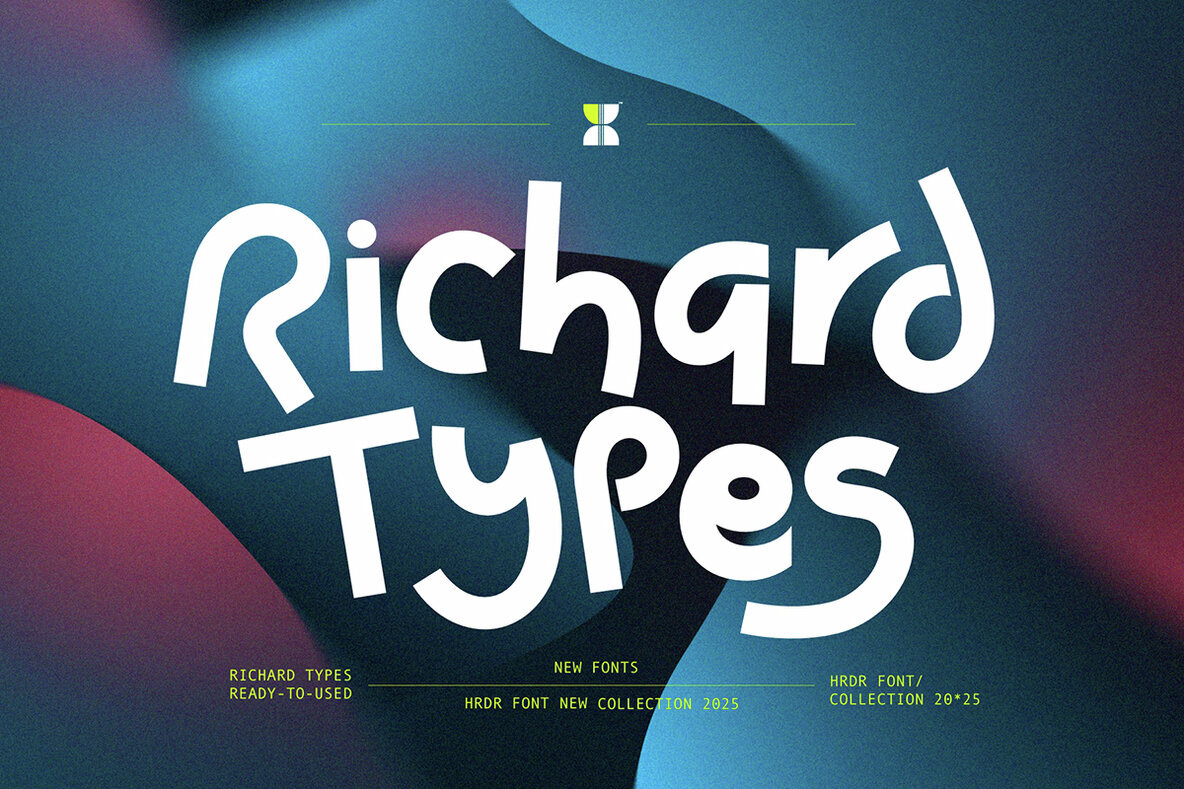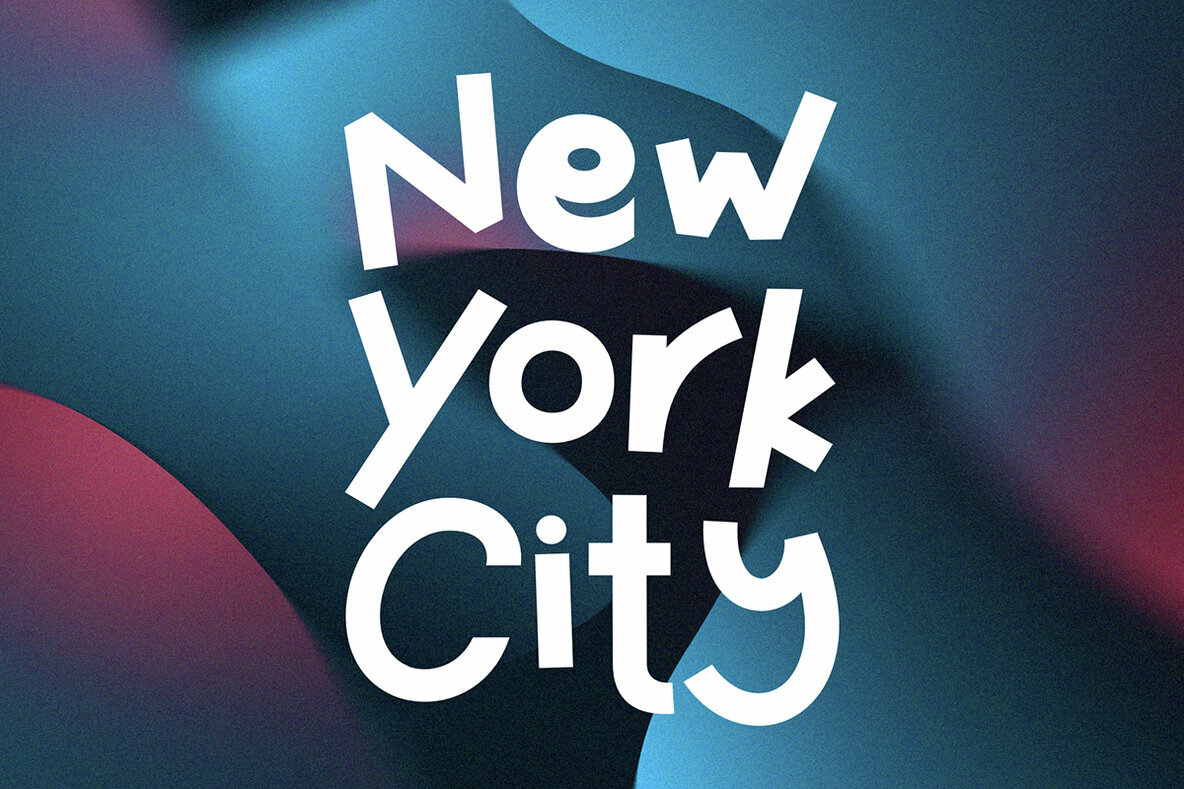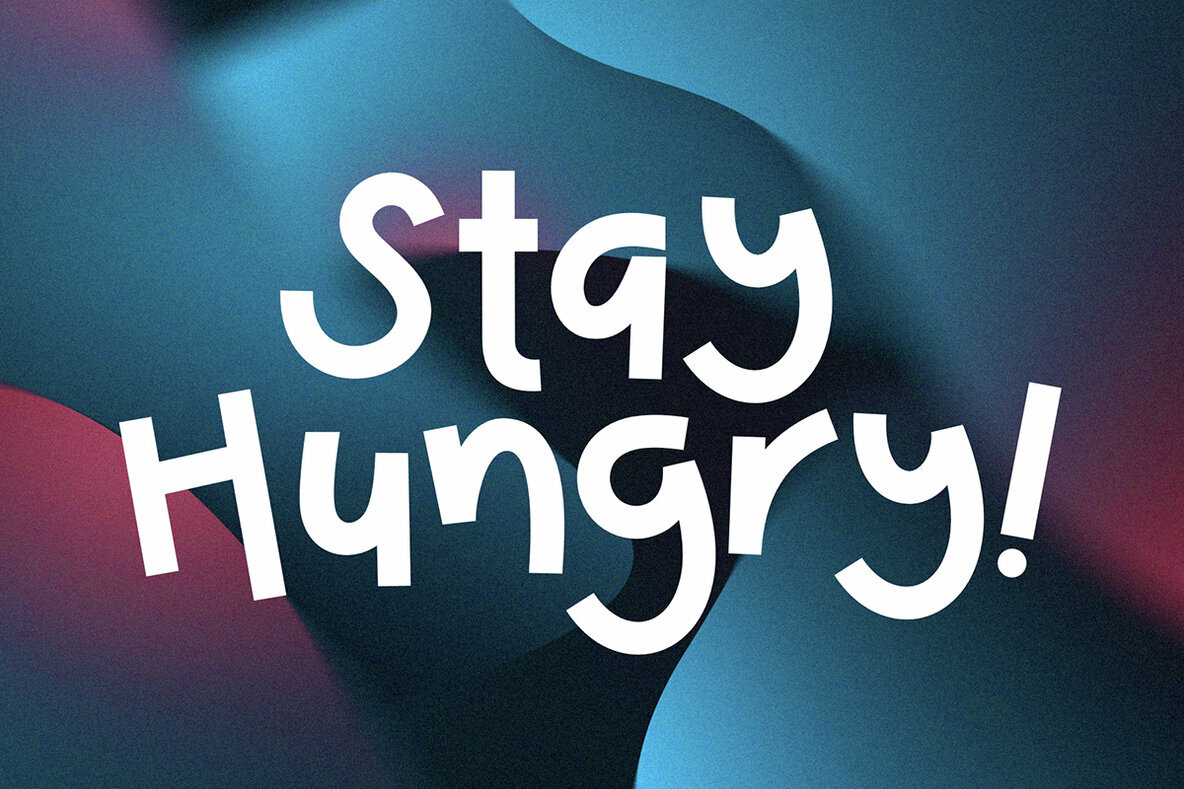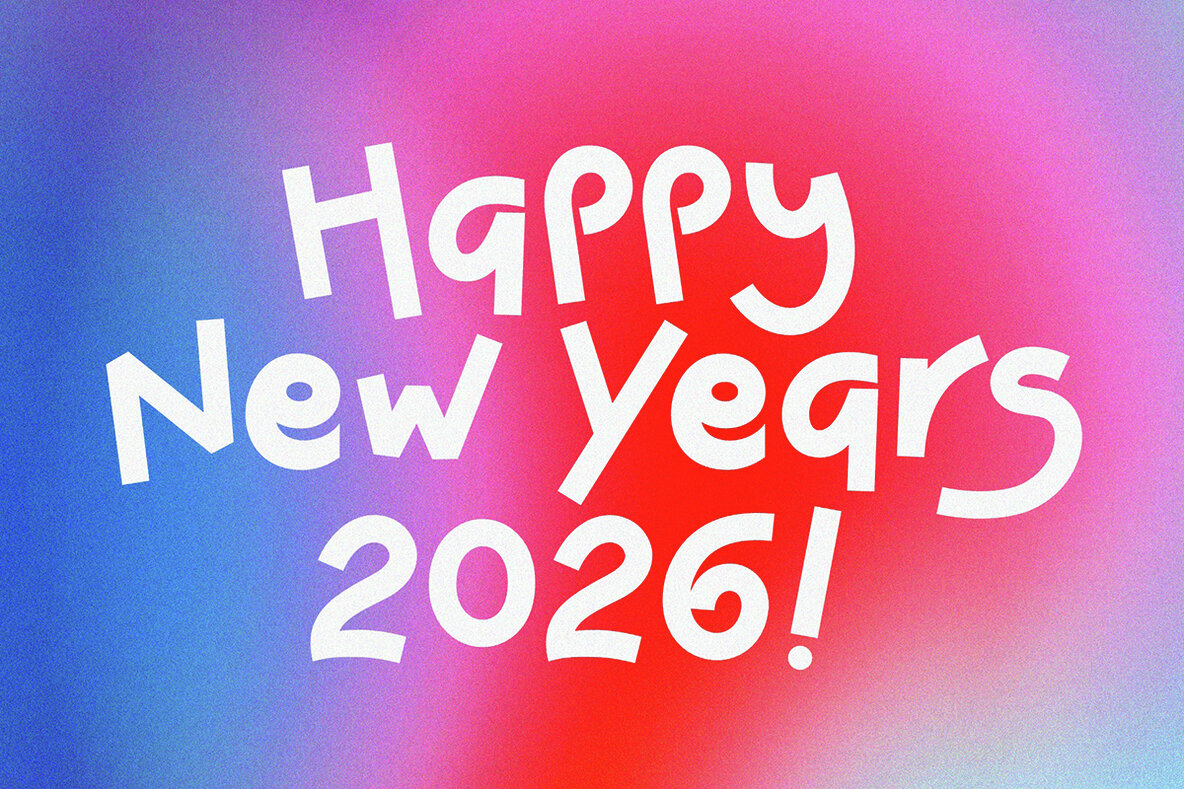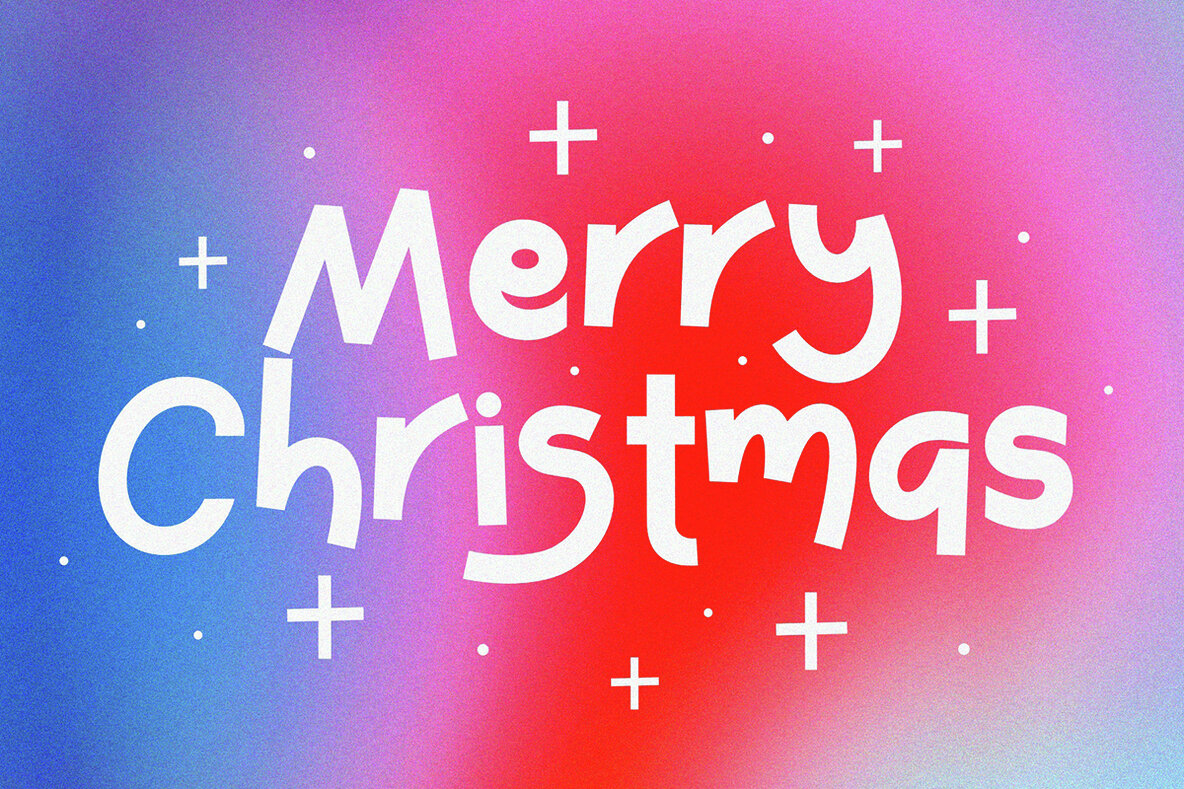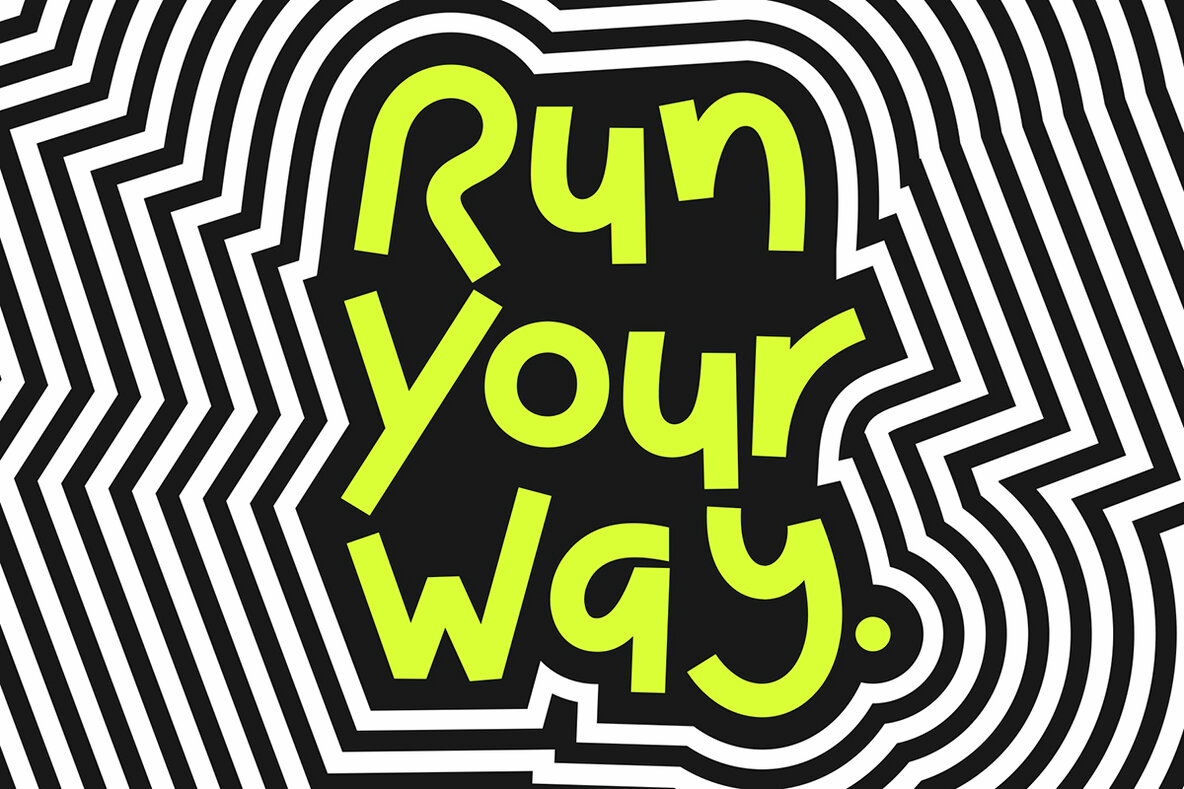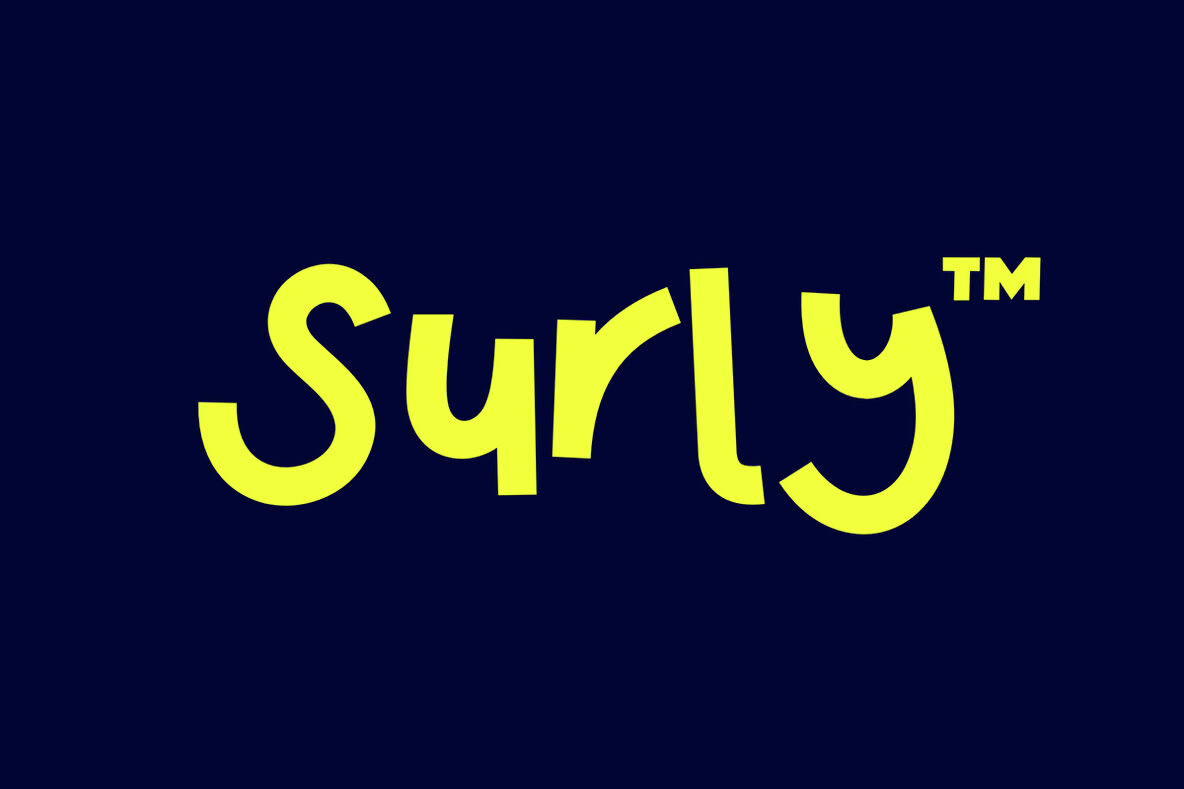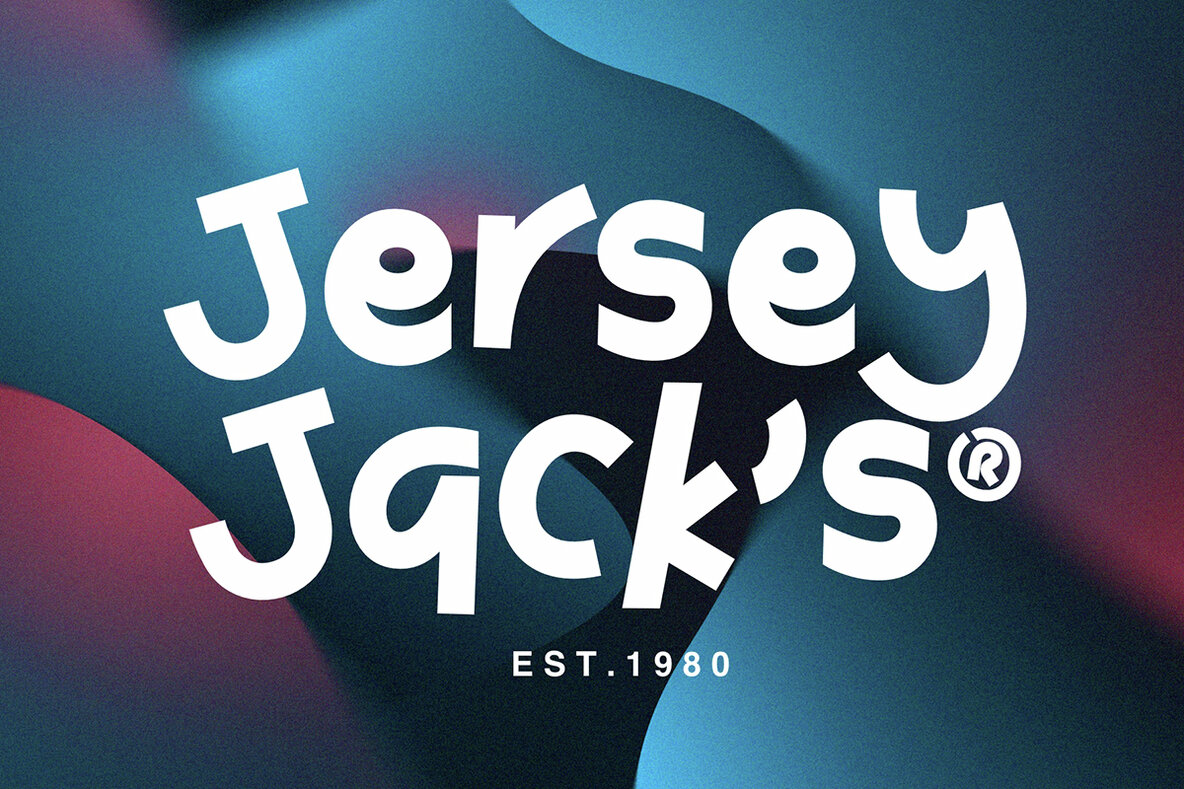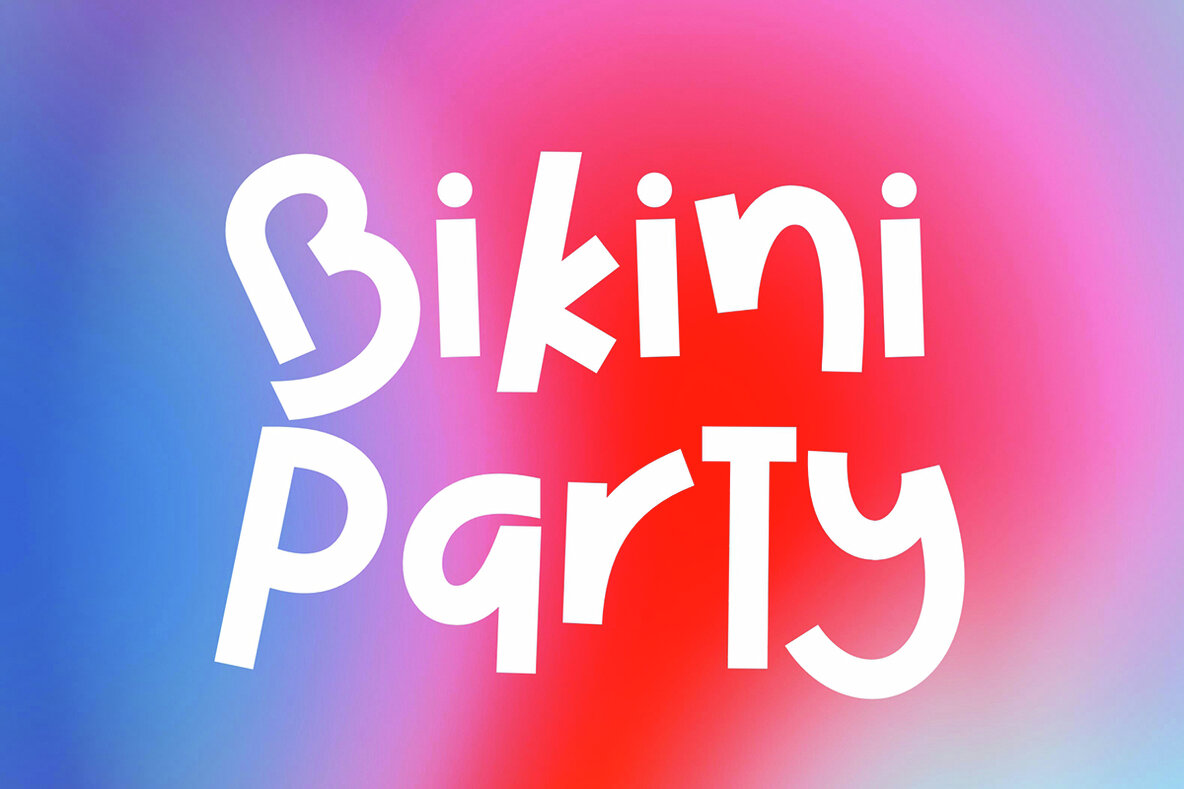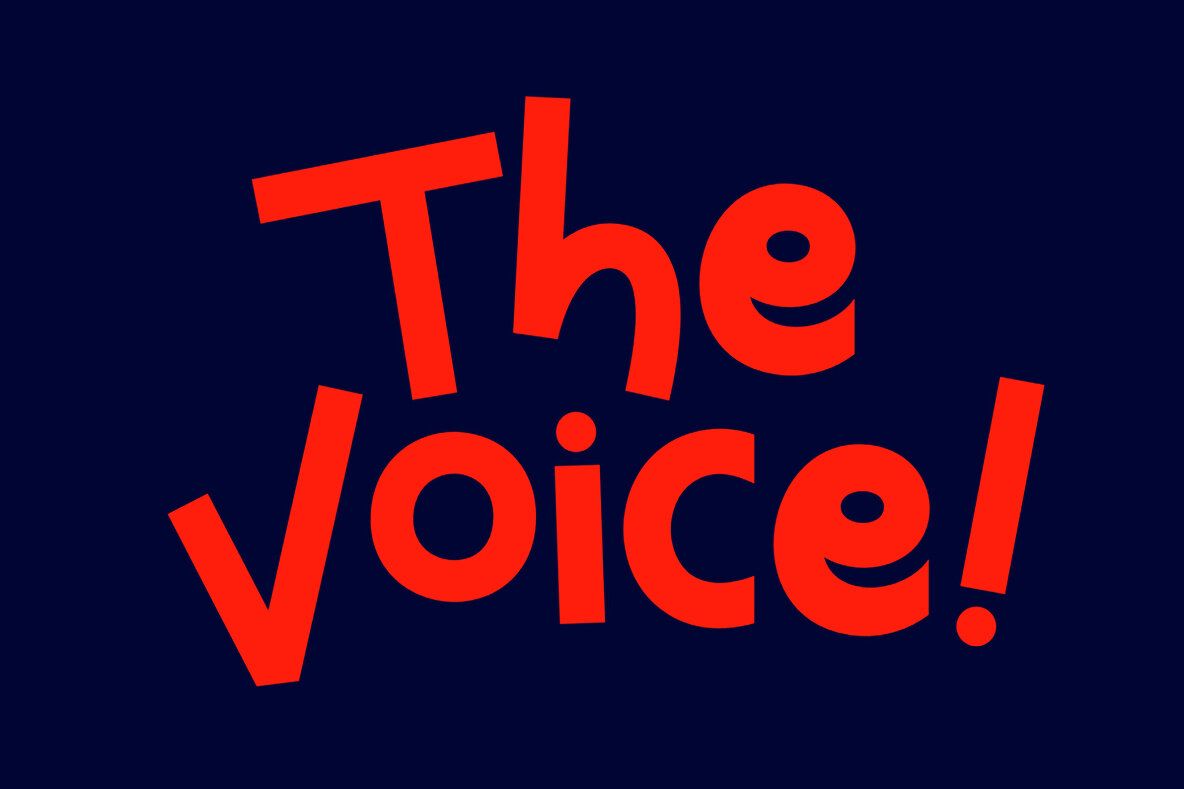
Richard Types Font
Richard Types stands out as a modern decorative font with a distinctive character. Its striking letterforms suit a variety of visual projects, from logos and branding to film titles and digital graphics. The blend of strong structure and refined details makes this typeface attractive to designers seeking a bold yet sophisticated typographic solution. For packaging, motion graphics, or editorial layouts, Richard Types delivers clarity while maintaining a unique visual presence.Richard Types: A Distinctive Decorative Typeface